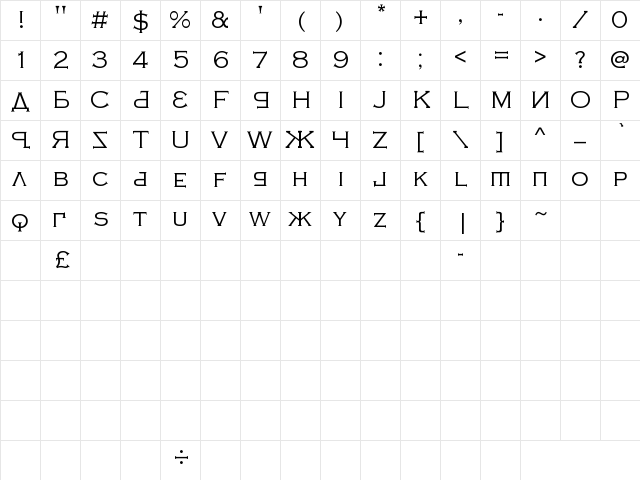
Kremlin Samovar Regular Free Font
Kremlin Samovar Regular
Designer: BoltCutterDesign
Design Context for Kremlin Samovar
Kremlin Samovar is a composed and adaptable typeface that performs quietly and consistently across a wide range of design contexts.